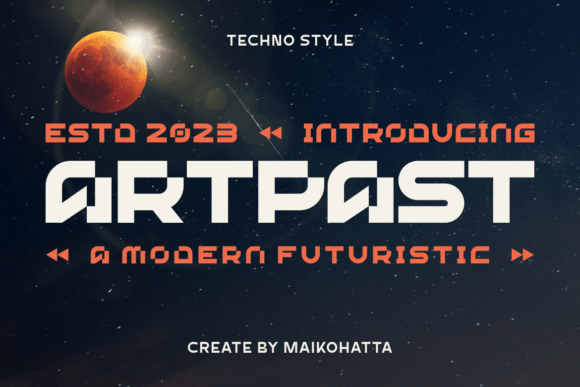
In a world where technology and design intersect, let us introduce Artpast, a display font that embodies the spirit of modern innovation. Inspired by the sleek lines and futuristic aesthetics of advanced technology, this font transcends the boundaries of conventional typography. It captures the essence of progress, advancement, and vitality, establishing a new visual language for the digital age.
Artpast's sharp angles, geometric letter shapes, and dynamic intricacies evoke a sense of cutting-edge innovation. It is a font that speaks the language of progress, perfectly suited for projects rooted in technology, robotics, science, and the captivating allure of modern living. Whether you're a designer crafting a sleek website, a developer creating a futuristic app, or a creative entrepreneur building a brand that exudes innovation, Artpast becomes your trusted visual companion.
Artpast's creative resonance extends beyond its digital realm. Its carefully conceived letterforms find harmony in print, adding a touch of sophistication to posters, flyers, and branding materials. Its versatility extends to merchandise design, where it transforms ordinary items into expressions of digital artistry.
In the dynamic world of social media, Artpast shines as a beacon of originality. Its distinctive characters bring life to captivating visuals, making it an ideal choice for social media posts, stories, and eye-catching graphics. Its ability to command attention in the crowded digital landscape ensures that your message stands out, leaving a lasting impression on your audience.
Unleash the boundless potential of Artpast, a font that represents an artistic leap into the future. Let its futuristic elegance elevate your creative projects, propelling them to new heights of innovation and visual appeal.